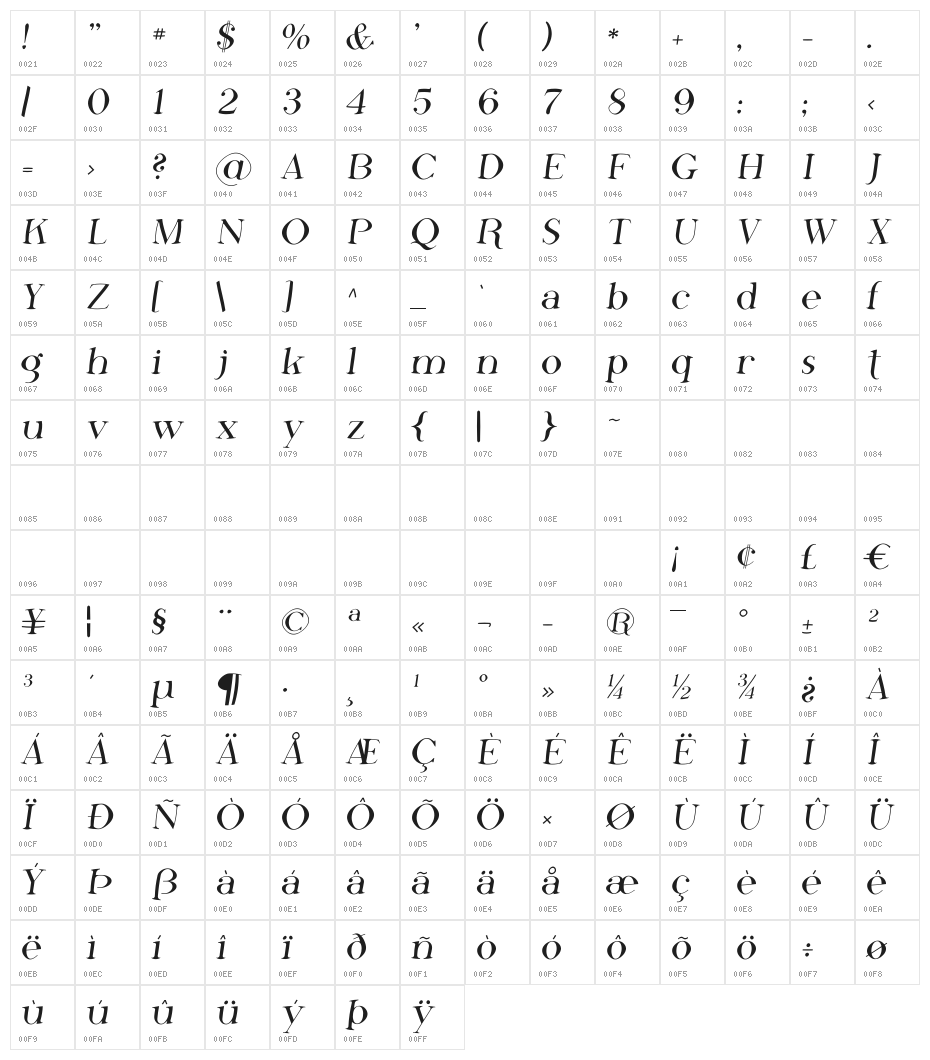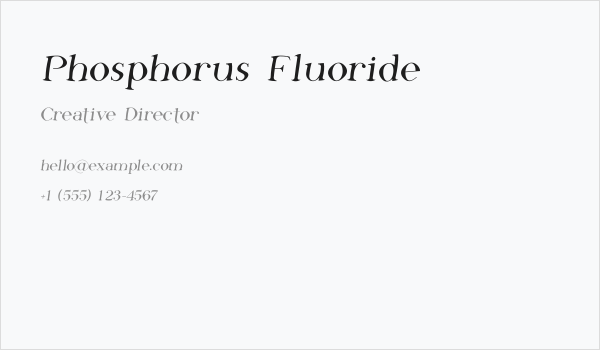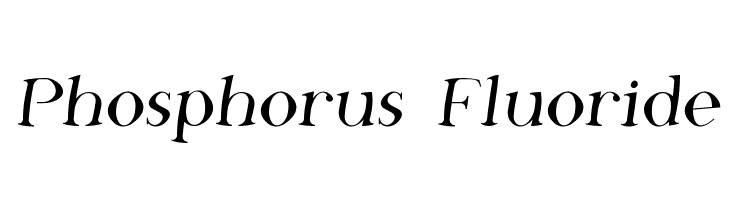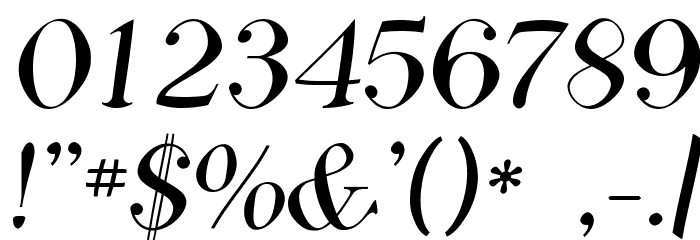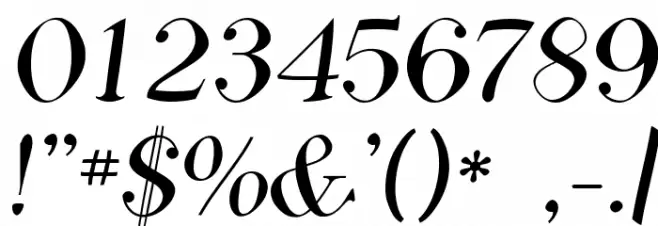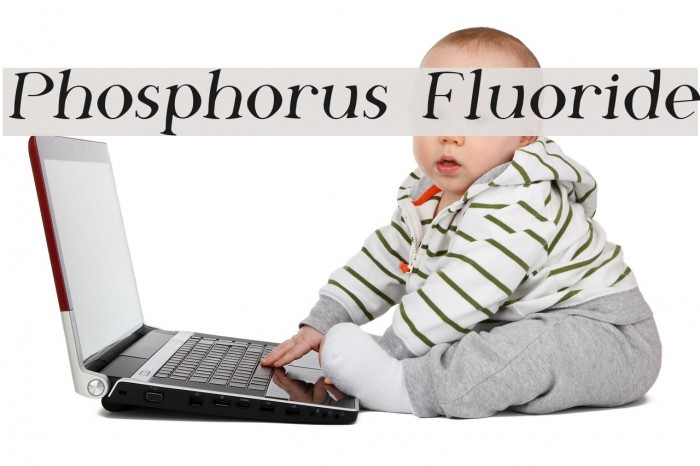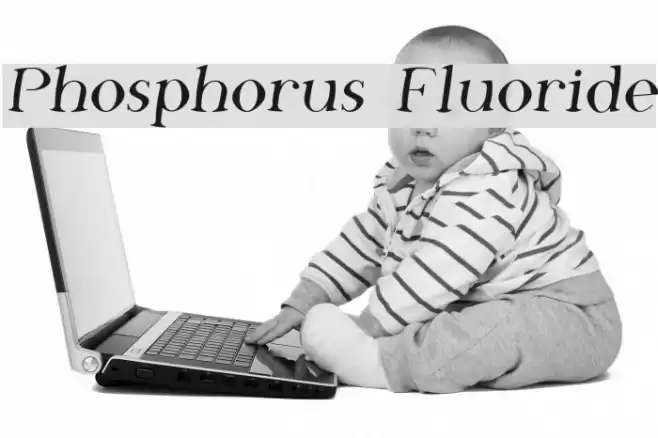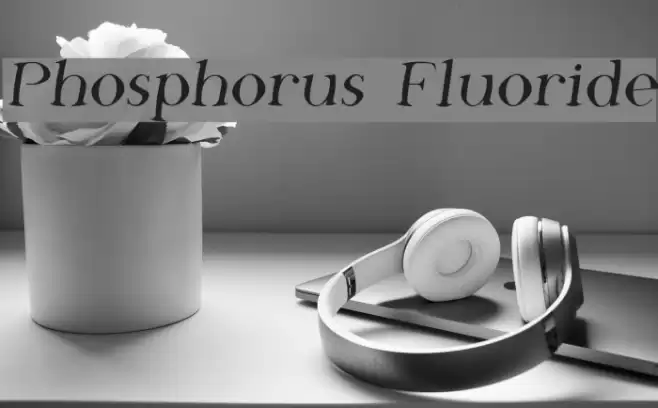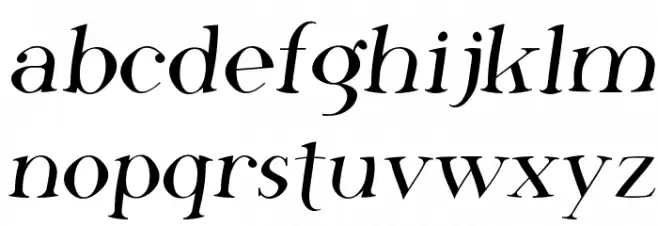
Phosphorus Fluoride Font
| 用途 | Headlines, Logos, Invitations |
| おすすめプロジェクト | Ideal for wedding invitations, formal event programs, luxury brand logos, and editorial design. |